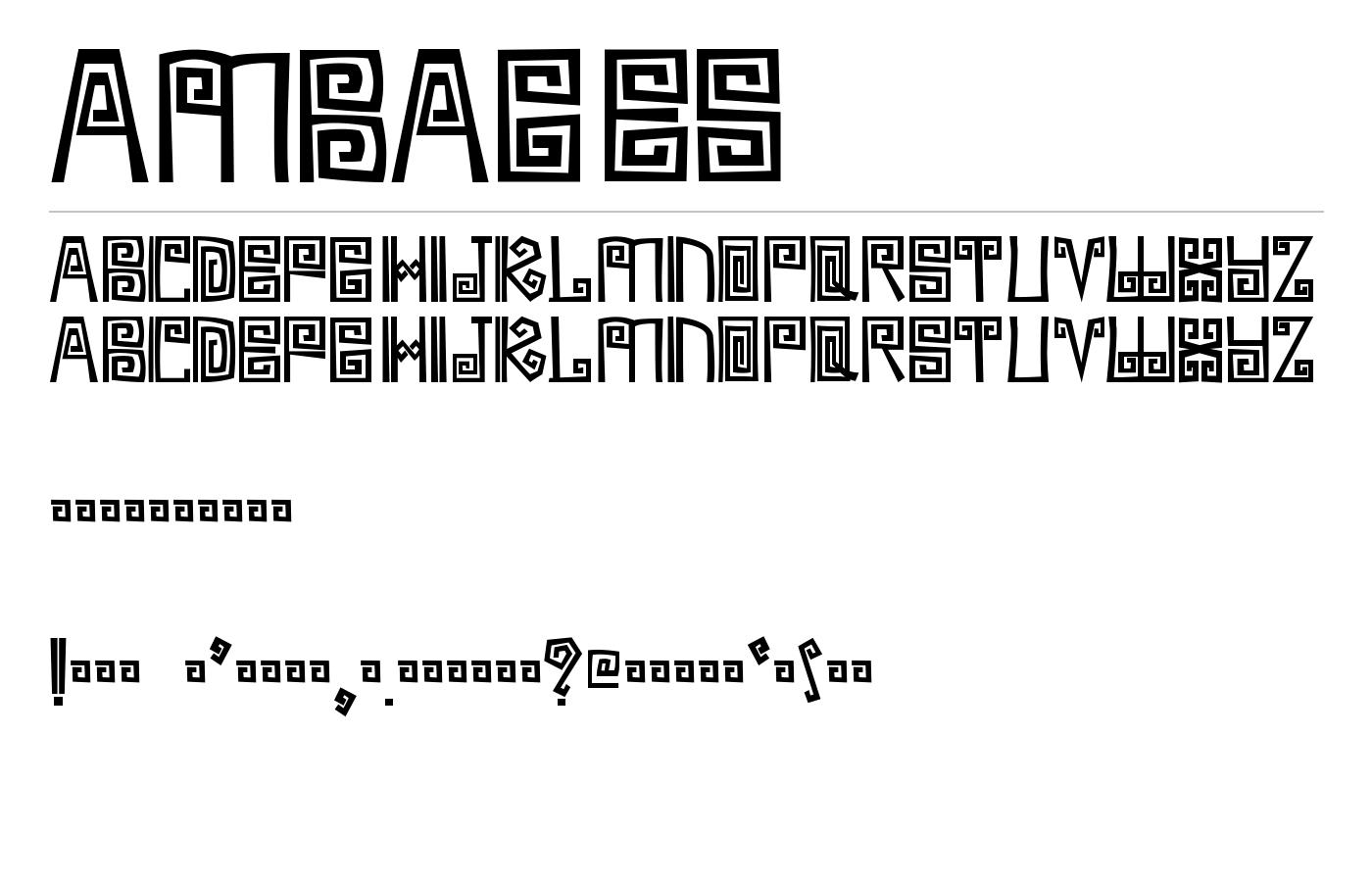
Ambages is a highly decorative display font featuring bold, geometric letterforms with intricate, maze-like internal patterns that give it a unique, artistic flair. Its playful and unconventional style makes it ideal for eye-catching headlines, logos, and creative projects seeking a distinctive, whimsical vibe. This font works best in small doses where impact and visual interest are key, rather than in long-form text.
Ambages Font
About Ambages Font